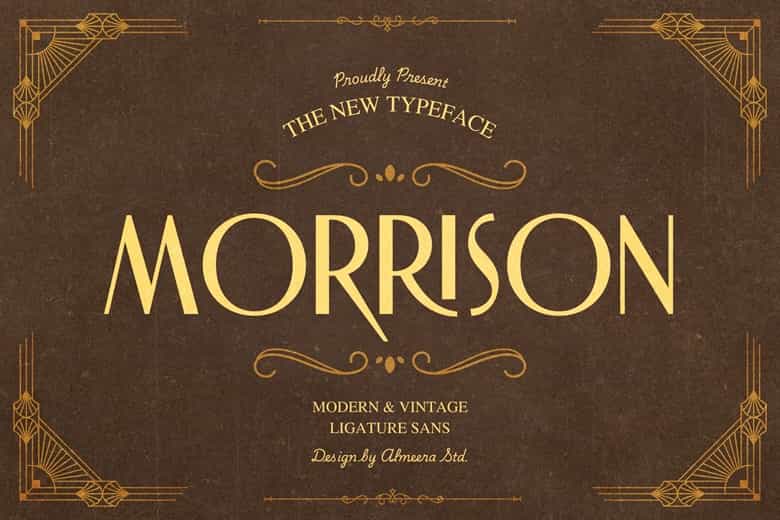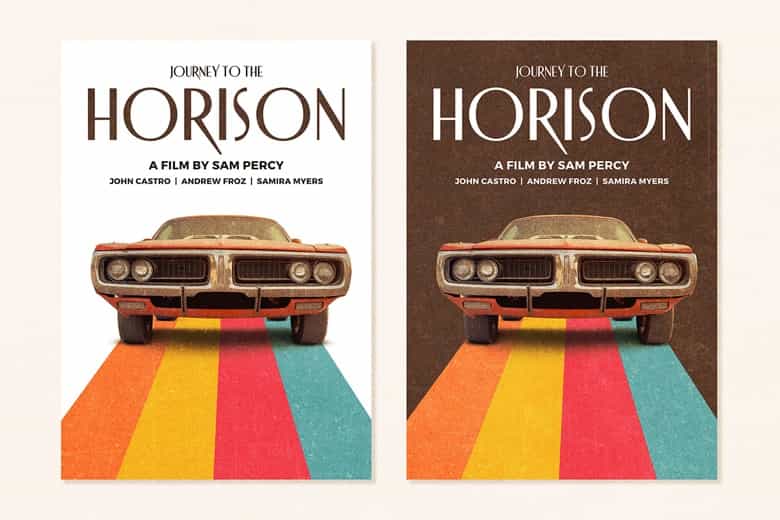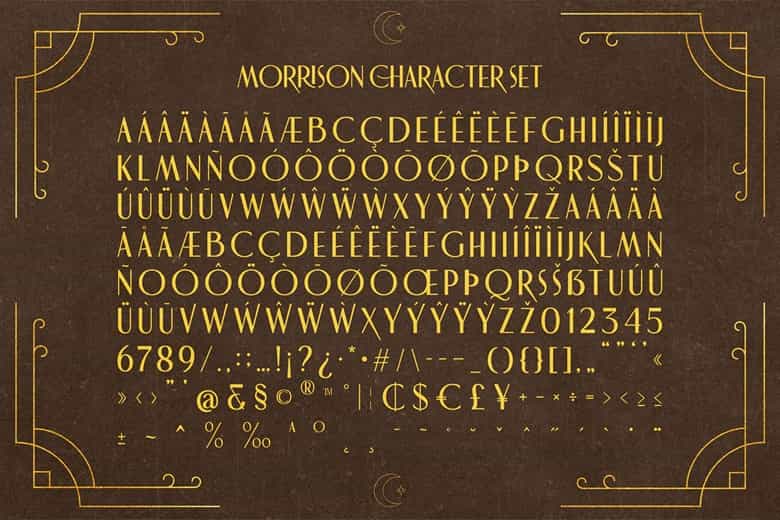
Morrison is named after the art and architecture of the decoration that started in the 1920s and became popular in the 1930s throughout the western part of Europe and America. This luxurious font is carefully made with accurate design to give a look of semi-modern sophistication with the elements of vintage style. Morrison is a modern writing instrument that boasts of splendidly crafted accents that give it finesse.